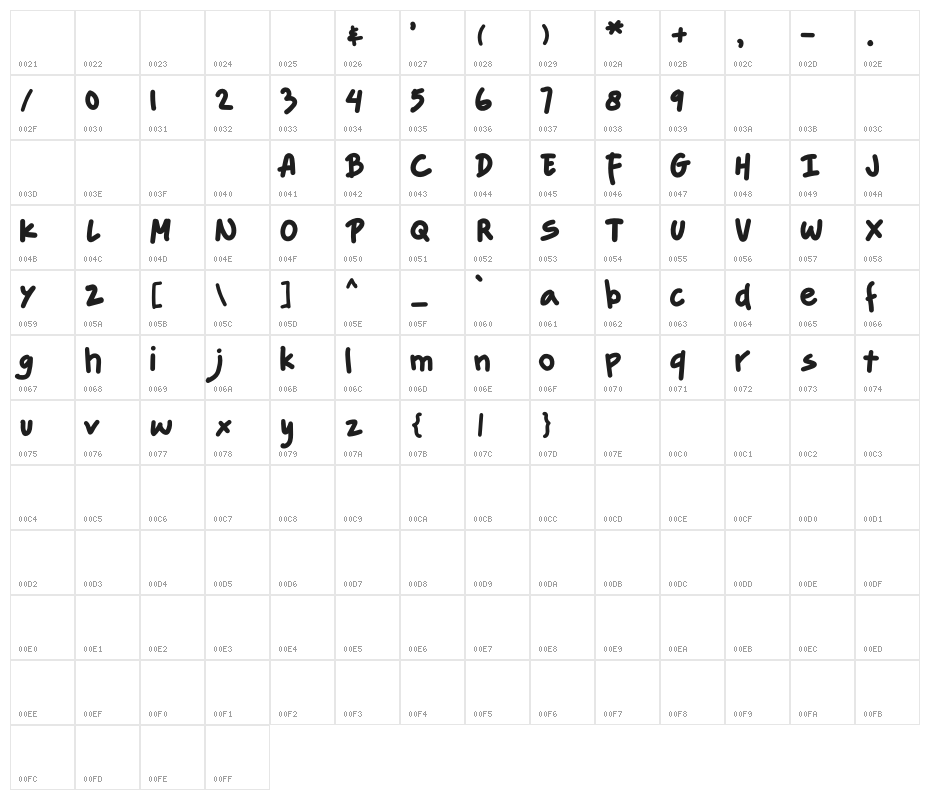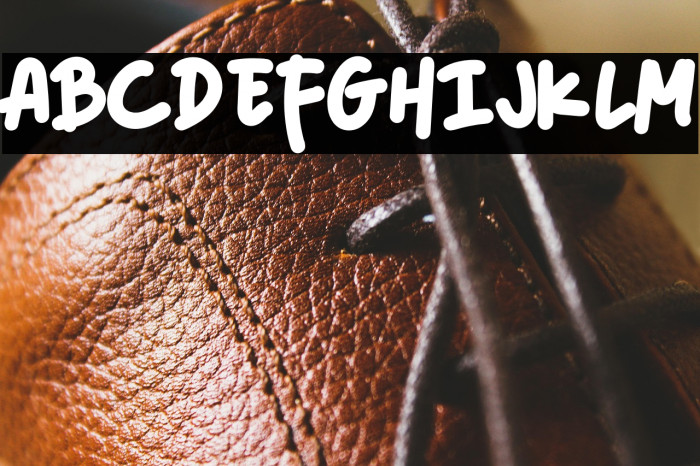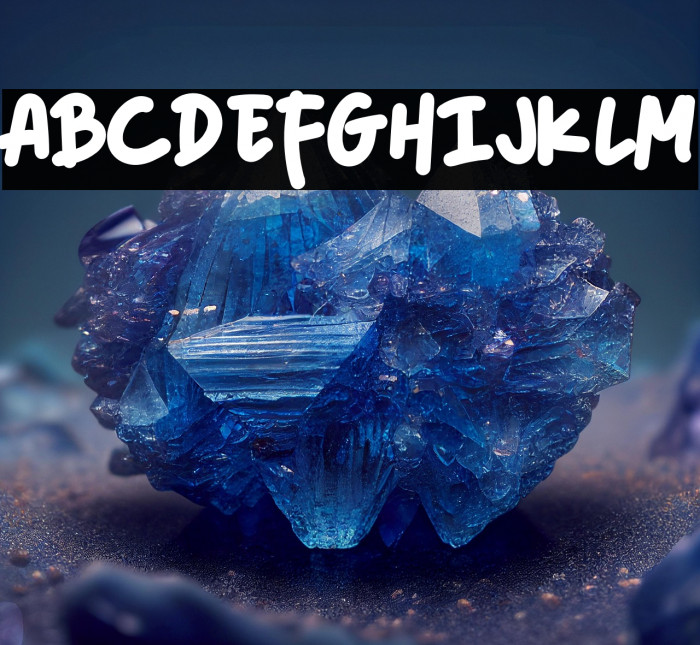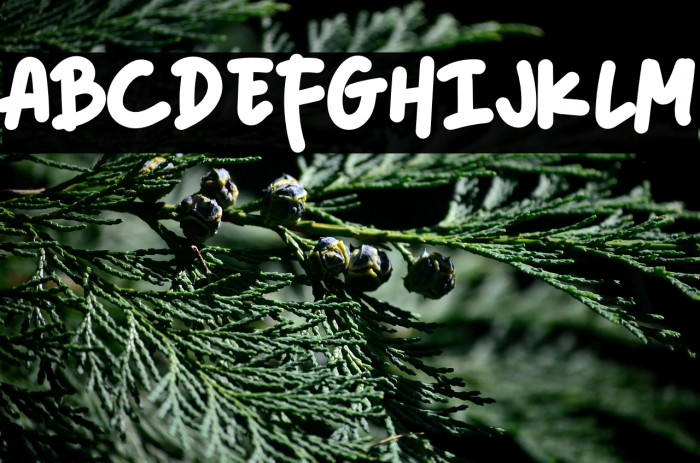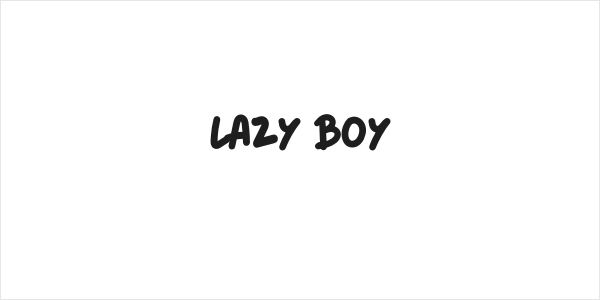
LAZY BOY Font
LAZY BOY Description
This font features a playful and casual handwritten style, characterized by bold, rounded strokes that give it a friendly and approachable appearance. The letters are slightly irregular, adding to the informal and relaxed feel. The uppercase and lowercase letters maintain a consistent style, with a noticeable thickness that ensures readability. Numbers and special characters are designed to match the overall aesthetic, making them blend seamlessly with the alphabet. This font's boldness and unique character make it suitable for projects that require a personal touch.